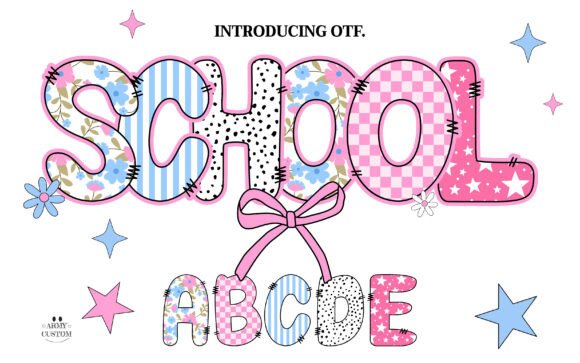
Preppy Coquette Font
Welcome to the world of Preppy Coquette Retro Floral, an exceptional font that resonates the essence of classic American style. As the name suggests, Be ready to experience a typographical journey filled with the spirit of nationhood profoundly embedded in every stroke and curve. Experience the timelessness of retro aesthetic combined with delightful floral motifs, which come together to form this beautiful Preppy Coquette Retro Floral font. Ideal for projects that need a touch of yesteryears, the Preppy Font adds an unmistakable flavor of nostalgia and a dash of elegance to your endeavors.